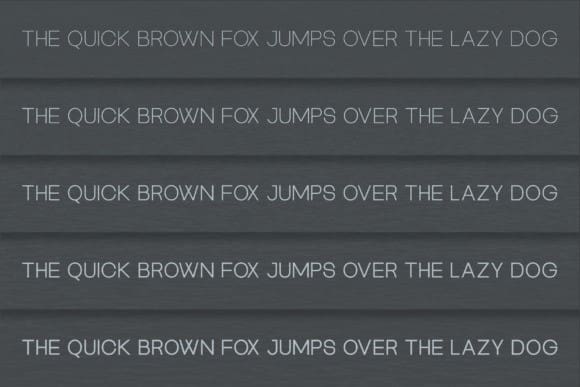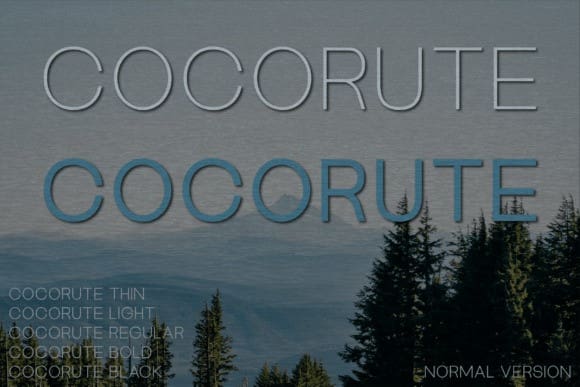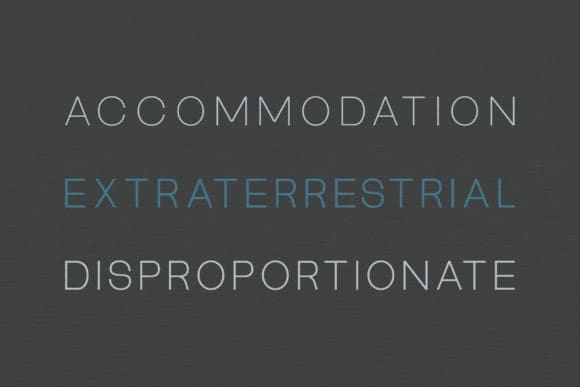
Cocorute Font Family
Cocorute Font Family – it’s elegance and minimalism embodied in type form. This distinguished sans serif font family presents five varying weights, each blending modern trends with a touch of luxe. Intricately crafted to the highest degree of precision, CocoruteFont elevates every project, be it the pages of an upscale magazine, the logo of an emerging brand, or a captivating film poster. Delve into the unique harmony of sophistication and straightforwardness, adding a timeless allure to your designs. Let the Cocorute Font family be the visual voice of your creative expressions.